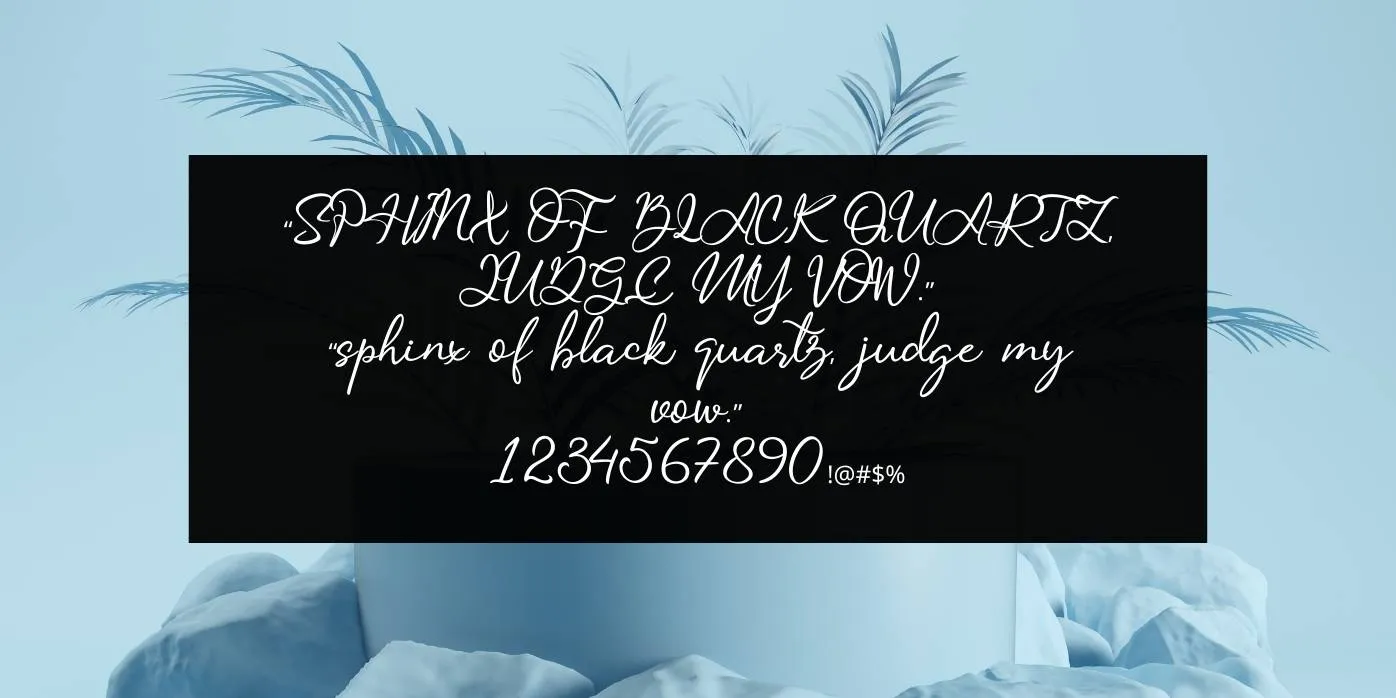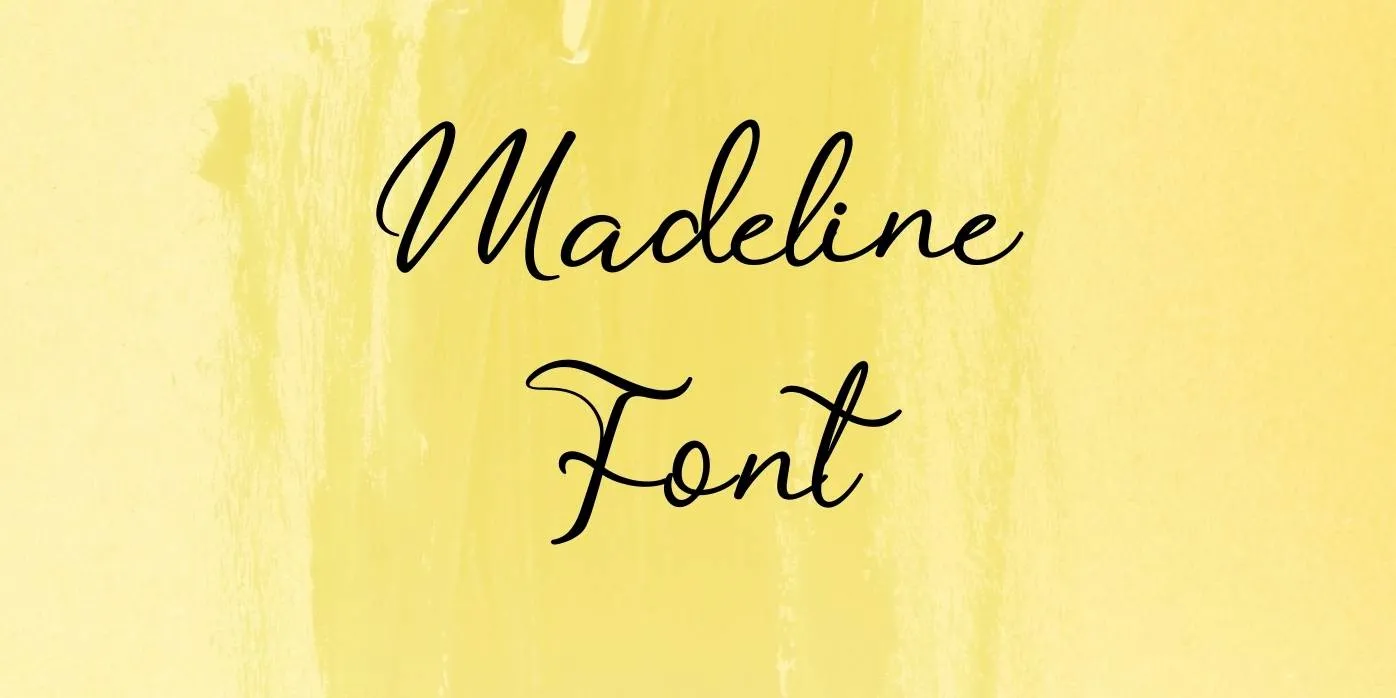
Madeline Font
Madeline Font was created by John Baskerville in 1757. It is named after his type foundry, which he opened in 1757. The typeface was created to improve upon the legibility of existing typefaces. Baskerville’s typeface was used extensively by the Cambridge University Press and became popular in books and newspapers.
In 1763, Baskerville published a Specimen of Printing Types, which included 44 fonts in three sizes. The typeface all weight includes Opentype features and Truetype features, it has a pairing personality with hype font. The typeface was later modified by John Thorne in 1790. Thorne made this typeface more delicate and increased the x-height.
This version of the typeface became known as “Thorn’s Improved Baskerville.”